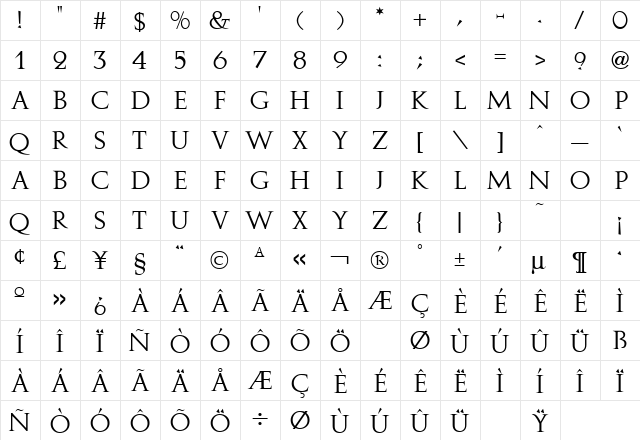
Aurea Regular
Design Context for Aurea Typeface
Aurea takes a measured approach to typography — its balanced proportions and neutral character make it a reliable workhorse for both digital and print work.